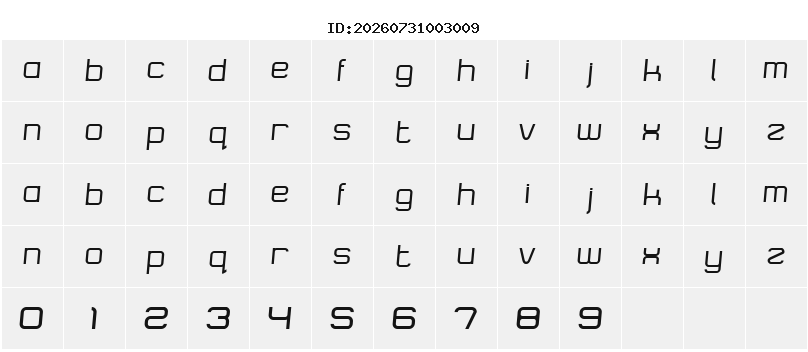
Logostile Preview
• Font Name: Logostile
About Logostile.ttf
Logostile.ttf is a modern, elegant sans-serif font designed for ultimate readability and visual harmony. Perfect for branding, headlines, web design, and print materials.